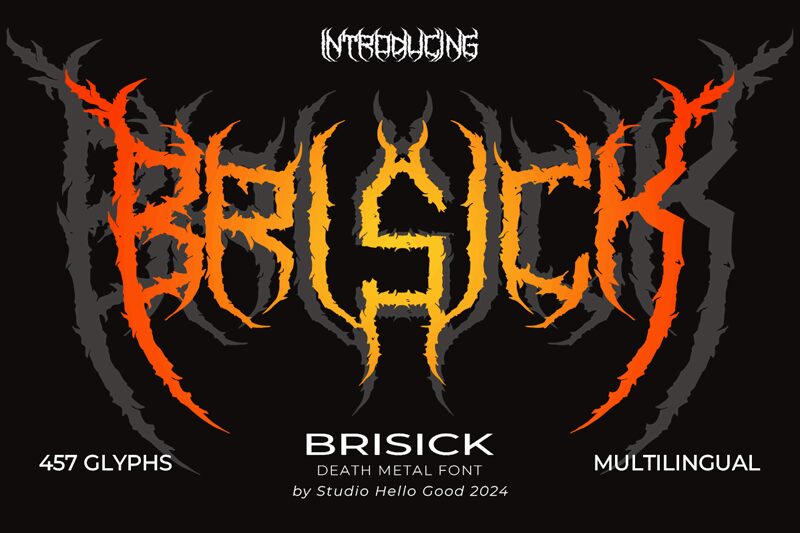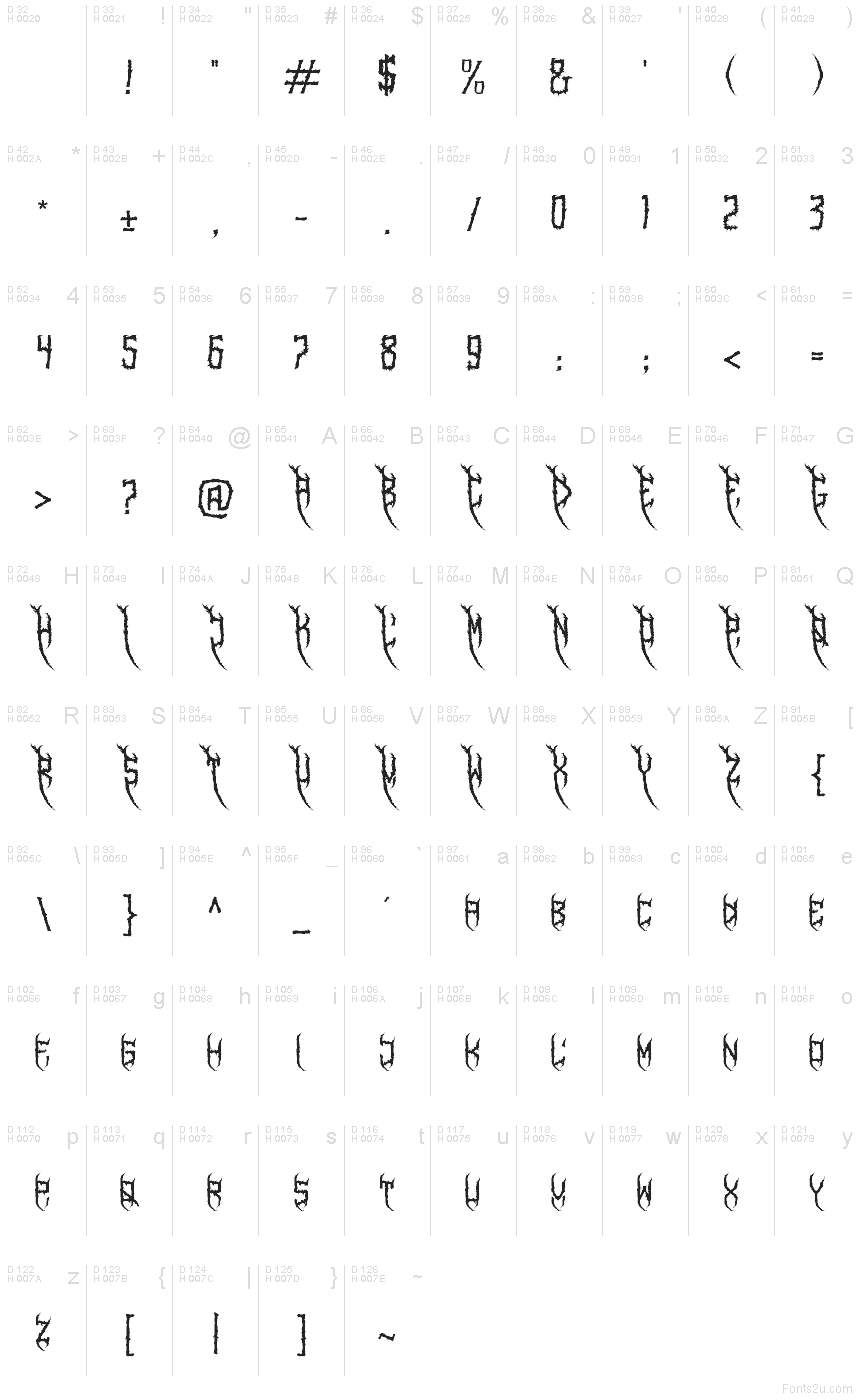
Brisick font by Studio Hello Good is a free scary display font with letters that look like thorny claws raked through ink. Its defining feature is the jagged, branch-like strokes that taper into sharp hooks, giving every word a slashing sense of motion. The texture feels raw and scratchy, with negative space carved out like wounds-aggressive, legible at size, and unapologetically feral.
Using Brisick, headlines hit like a scream: horror posters, metal band logos, haunted attraction branding, Halloween merch, game titles, and YouTube thumbnails all benefit from its clawed rhythm. This free font loves big scales and a little breathing room; add slight tracking and pair it with a clean geometric sans to steady the chaos.